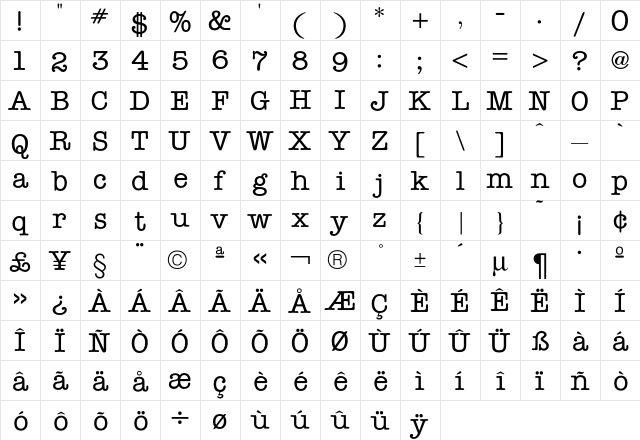
American TypeMedium Font Preview
American TypeMedium
American TypeMedium Font Details
Design Context for American Typeface
American is a composed and adaptable typeface that performs quietly and consistently across a wide range of design contexts.